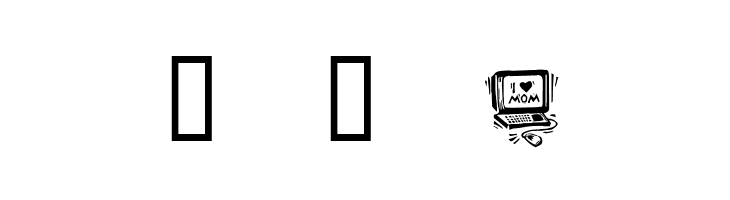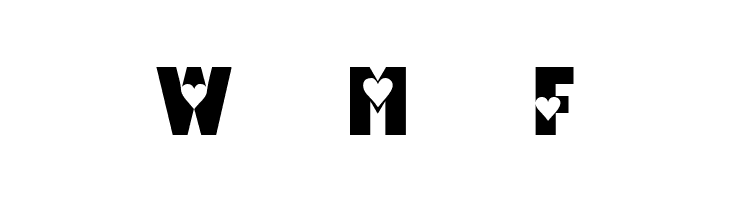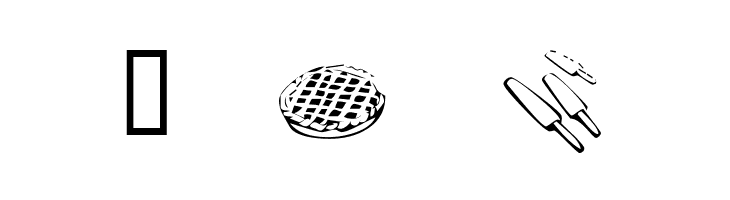
A decorative font with Mother's Day-themed designs and playful elements.
A playful collection of dingbats featuring childlike drawings and decorative elements.
A decorative font with Christmas-themed icons for festive projects.
A playful font with characters inside birthday cakes, perfect for festive occasions.
A decorative font with Christmas-themed illustrations, perfect for festive projects.
A playful font with letters inside turtle silhouettes, perfect for fun and creative projects.
A bold, heart-themed decorative font with playful and romantic elements.